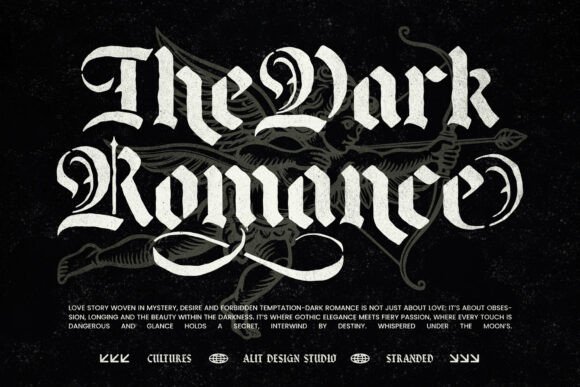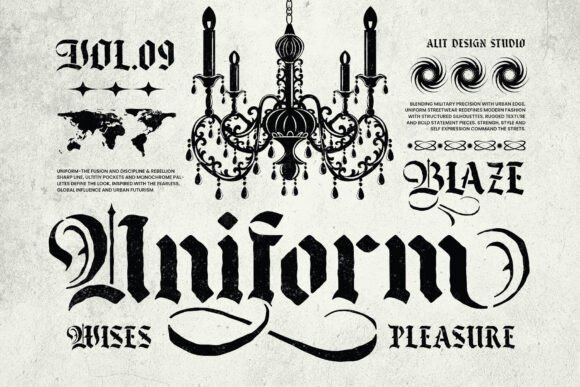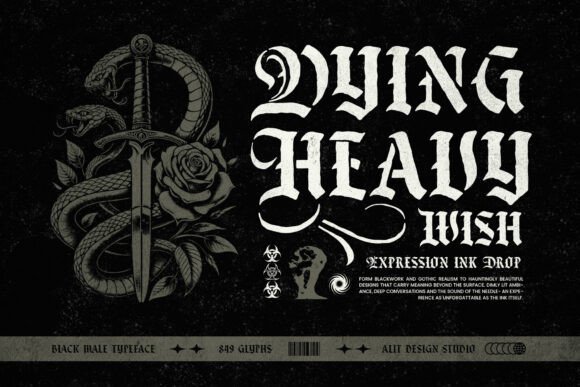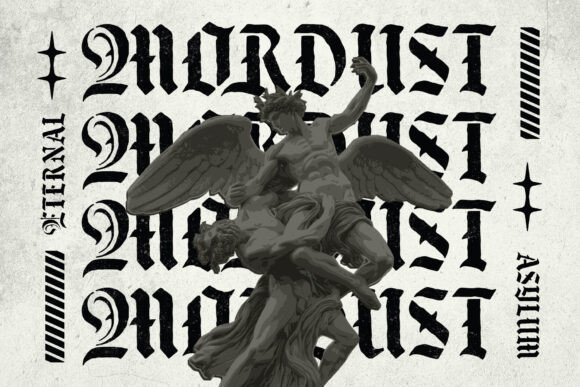
Black Male Font
Black Male is a meticulously designed blackletter stencil typeface, crafted to bring the perfect balance between historical calligraphy and modern industrial aesthetics. With a rich character set of 849 glyphs, this font provides extensive typographic options, including alternates, swashes, and ligatures for maximum design flexibility.